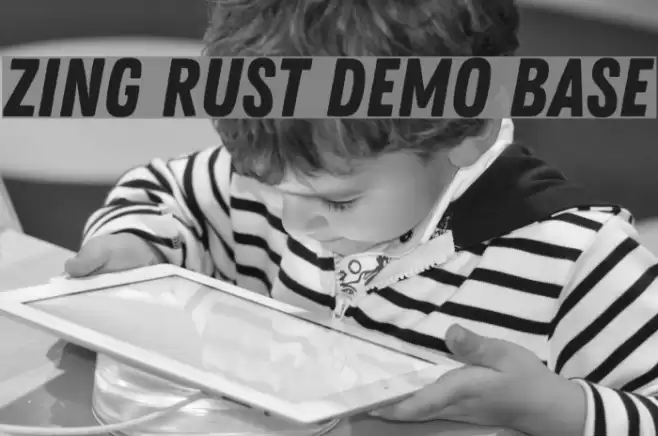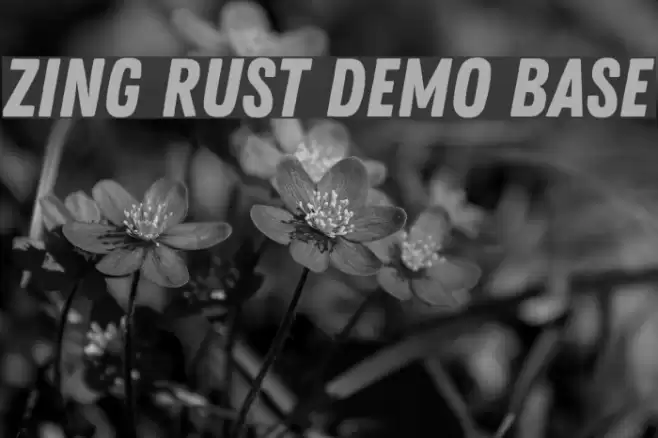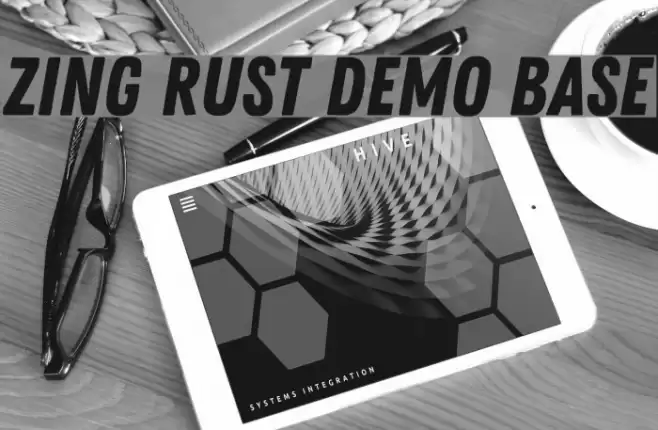
Zing Rust Demo Base Font
Zing Rust Demo Base Description
This font features bold, impactful characters with a slightly condensed width, giving it a strong and assertive presence. The strokes are consistent and solid, providing a sense of stability and confidence. The uppercase letters are particularly striking, with a uniform height and width that make them ideal for headlines or titles. The lowercase letters maintain the same boldness, ensuring readability and coherence across different text sizes. Numbers and special characters are designed with the same attention to detail, ensuring they integrate seamlessly with the alphabet. The overall style is modern and dynamic, suitable for projects that require a bold statement.
A bold, modern font with a slightly condensed width and strong presence from Uncategorized fonts.